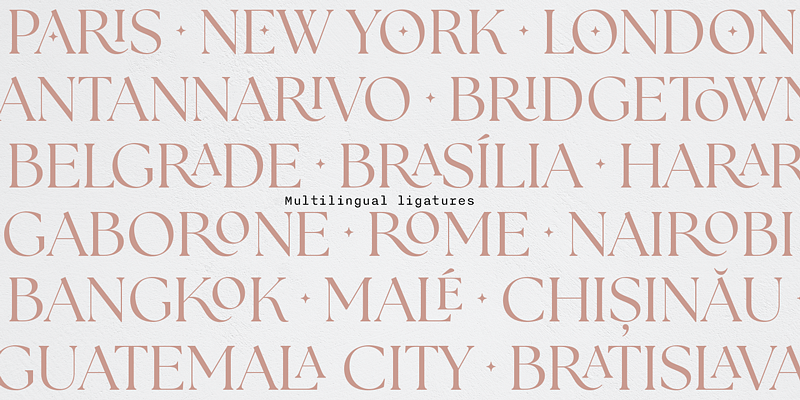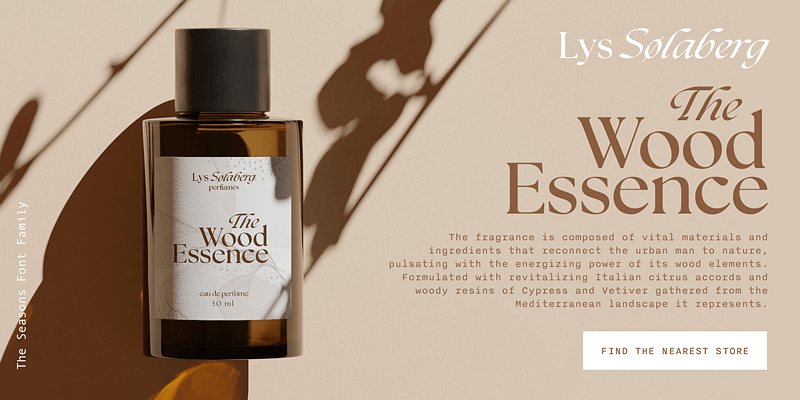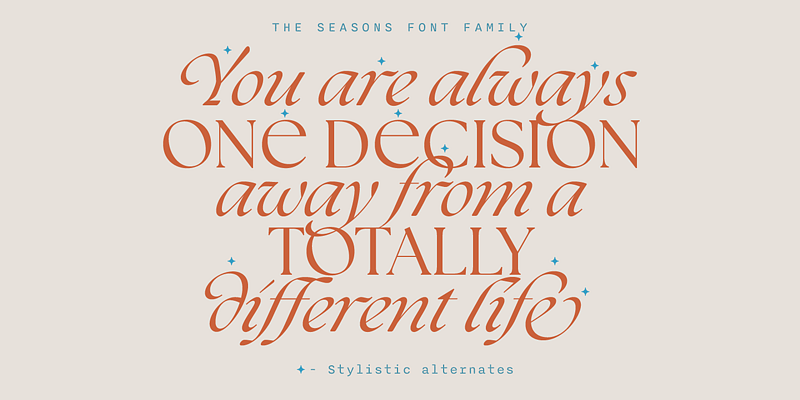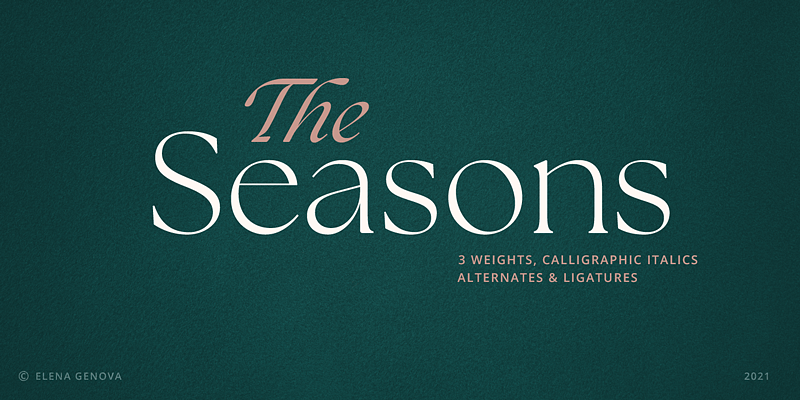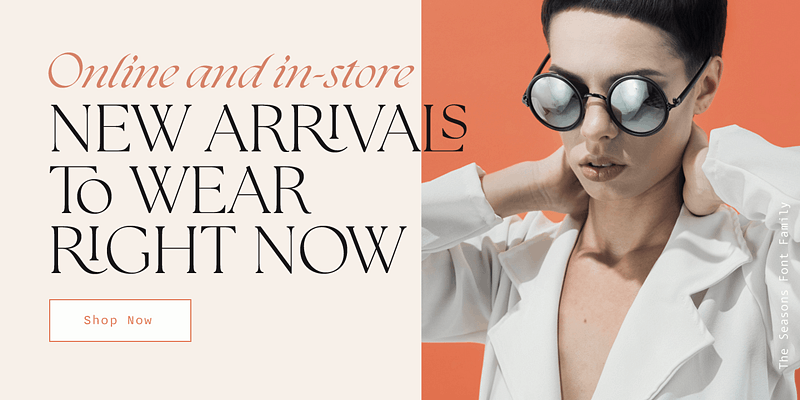
The Seasons is an elegant serif family with a strikingly chic look. The companion calligraphic italics are based on humanistic scripts and written using a Pilot Parallel Pen. The design is further enhanced with ligatures and stylistic alternates. All weights — Thin to ExtraBold — share the same style of softly sheared terminals and sharply dramatic curves, making them perfect for branding, logos, magazines, product packaging, and invitations. Language support includes Extended Latin and Cyrillic.